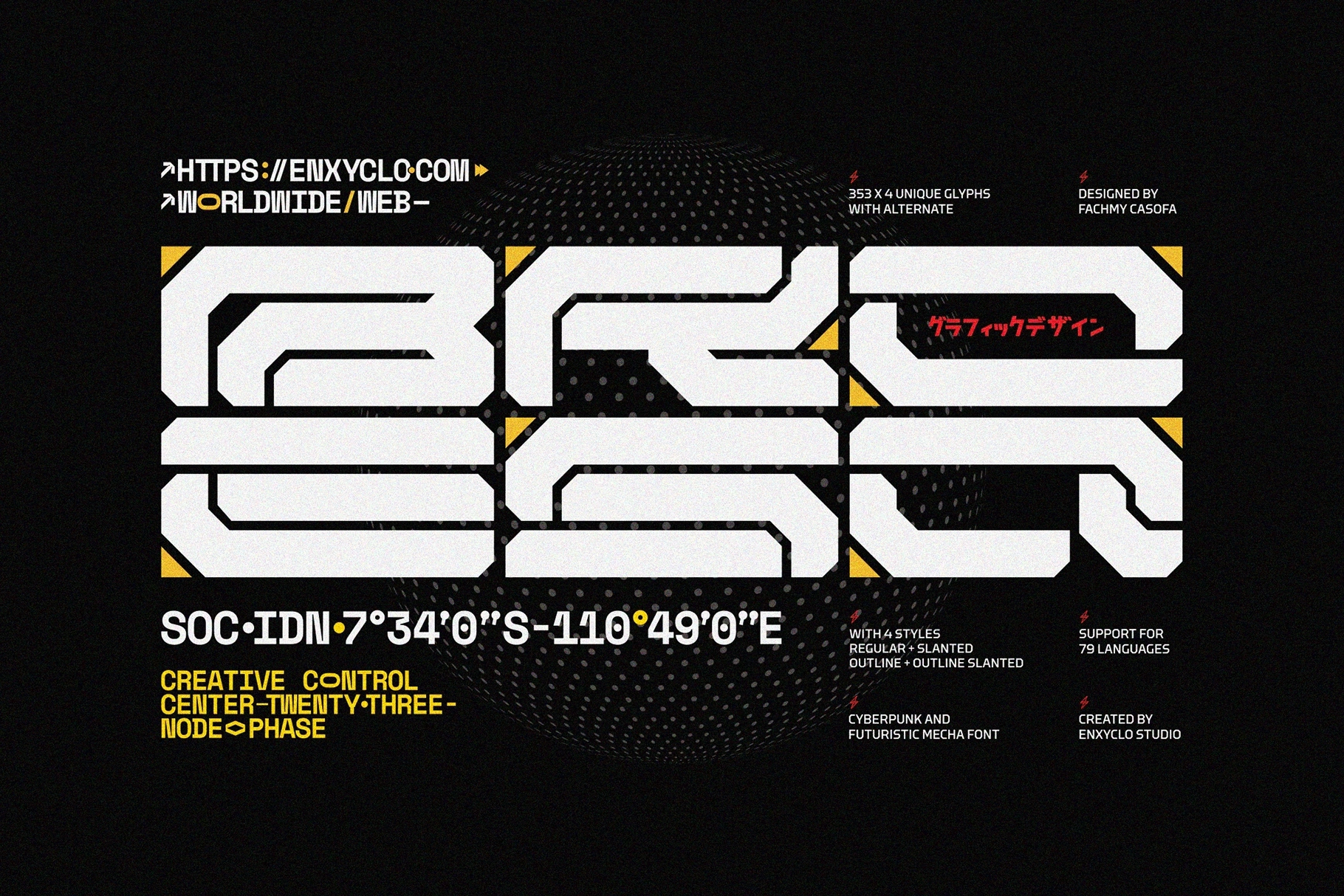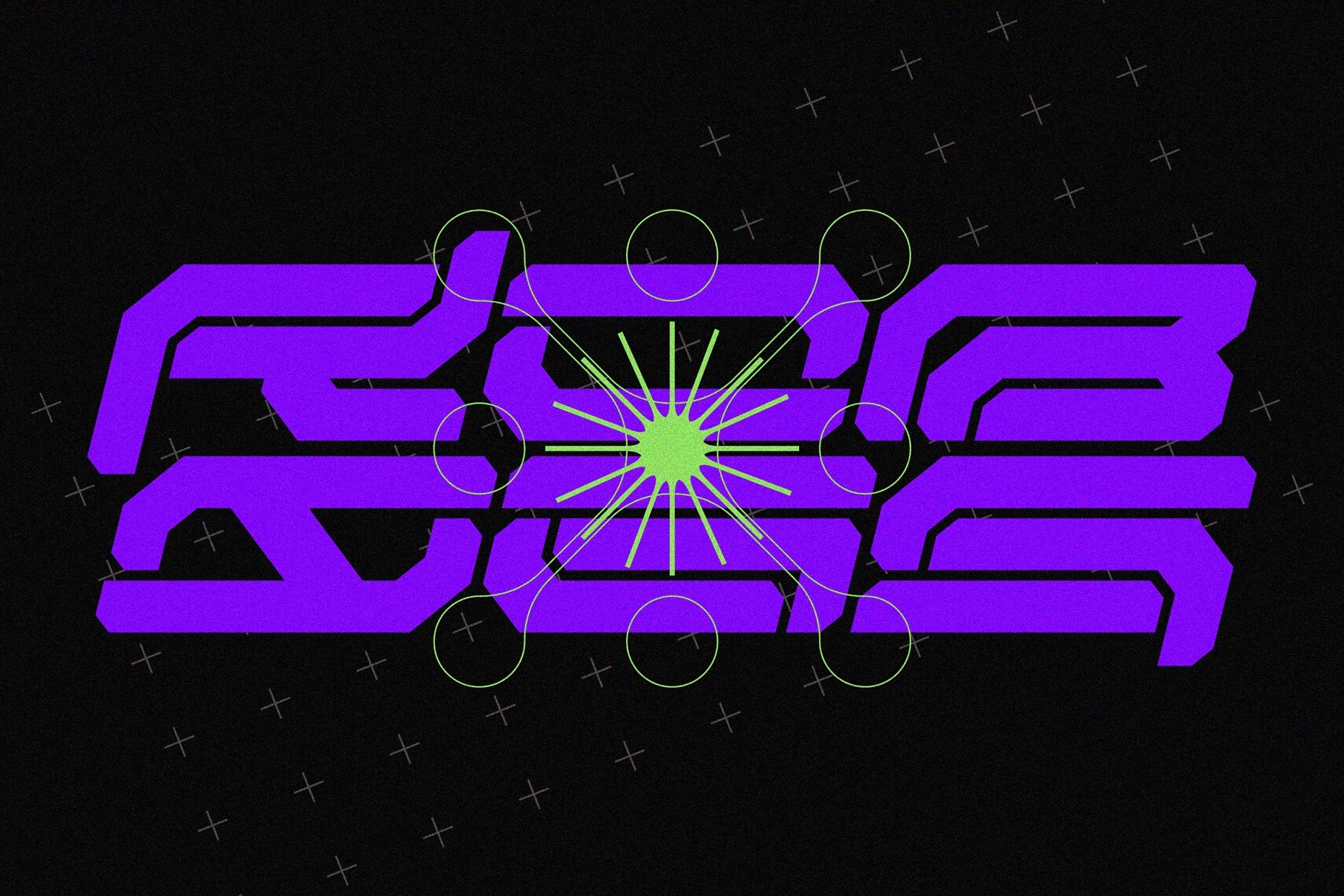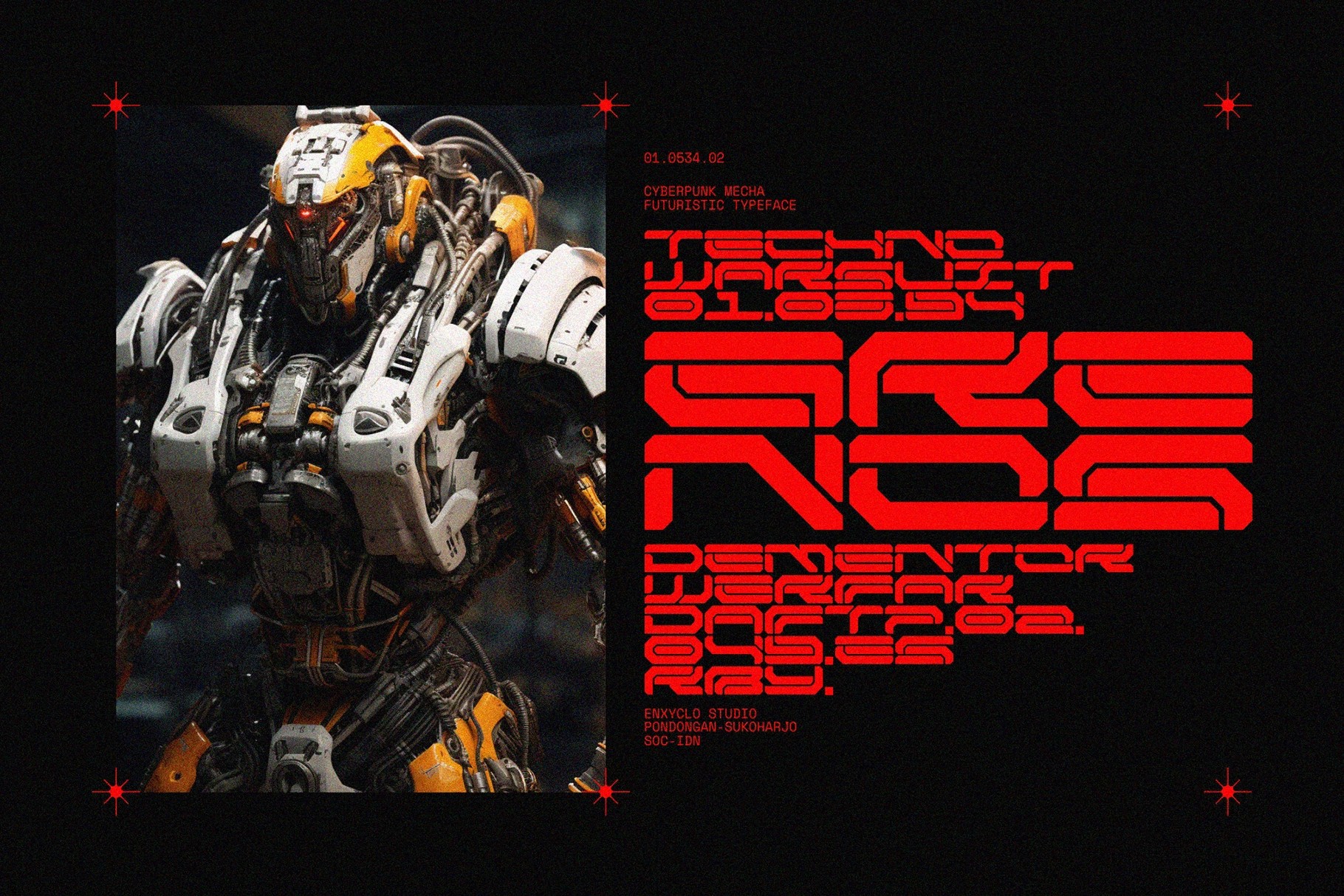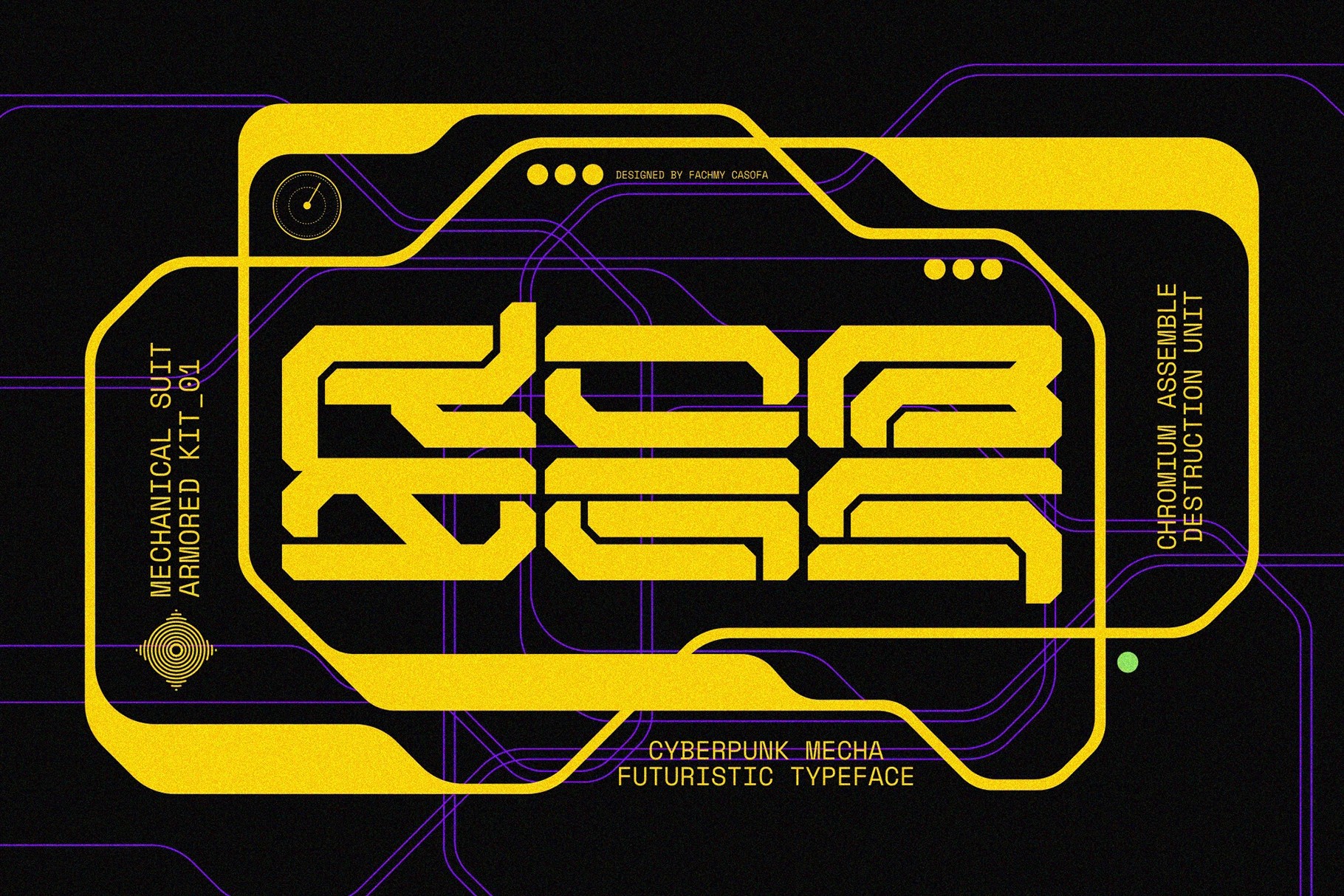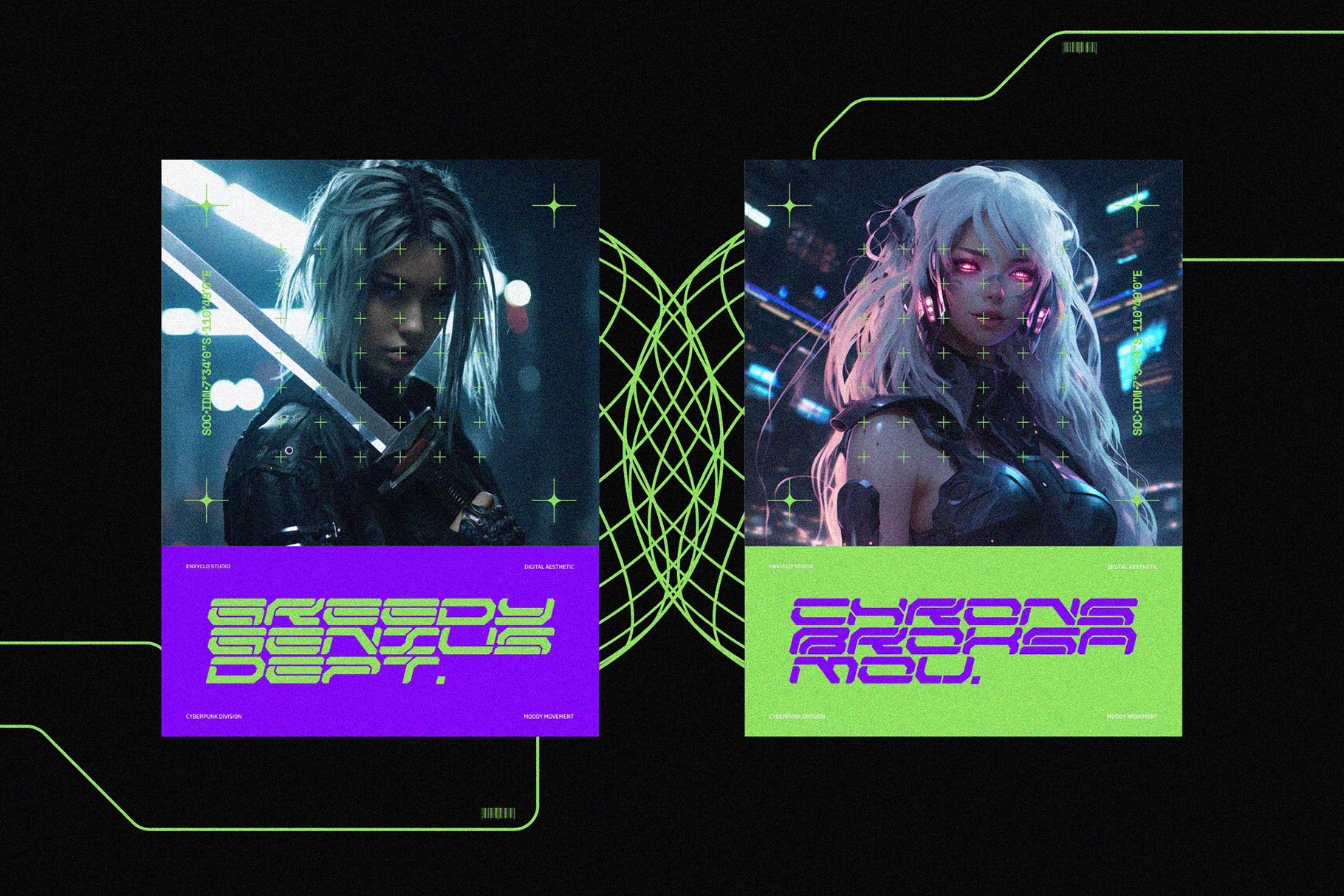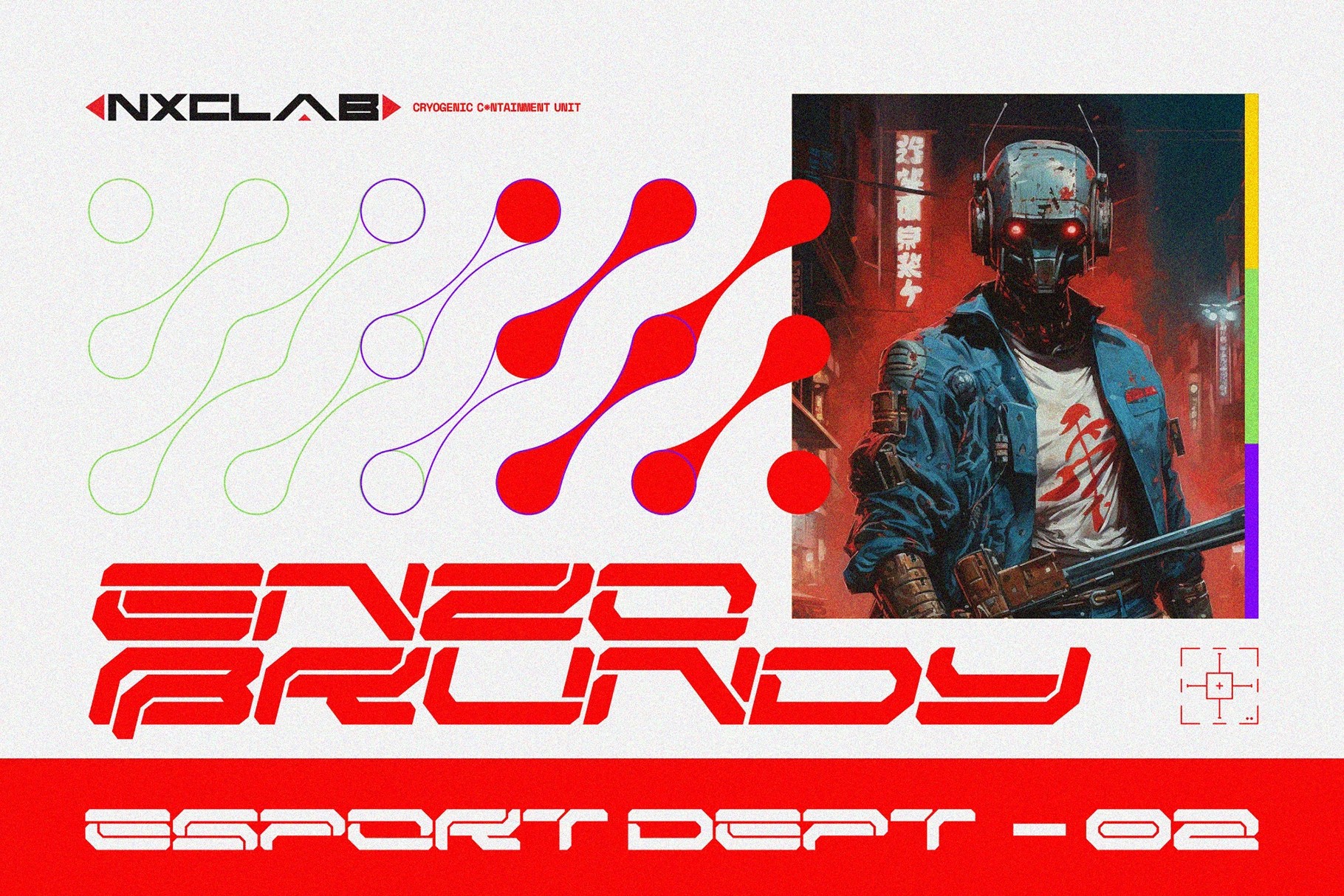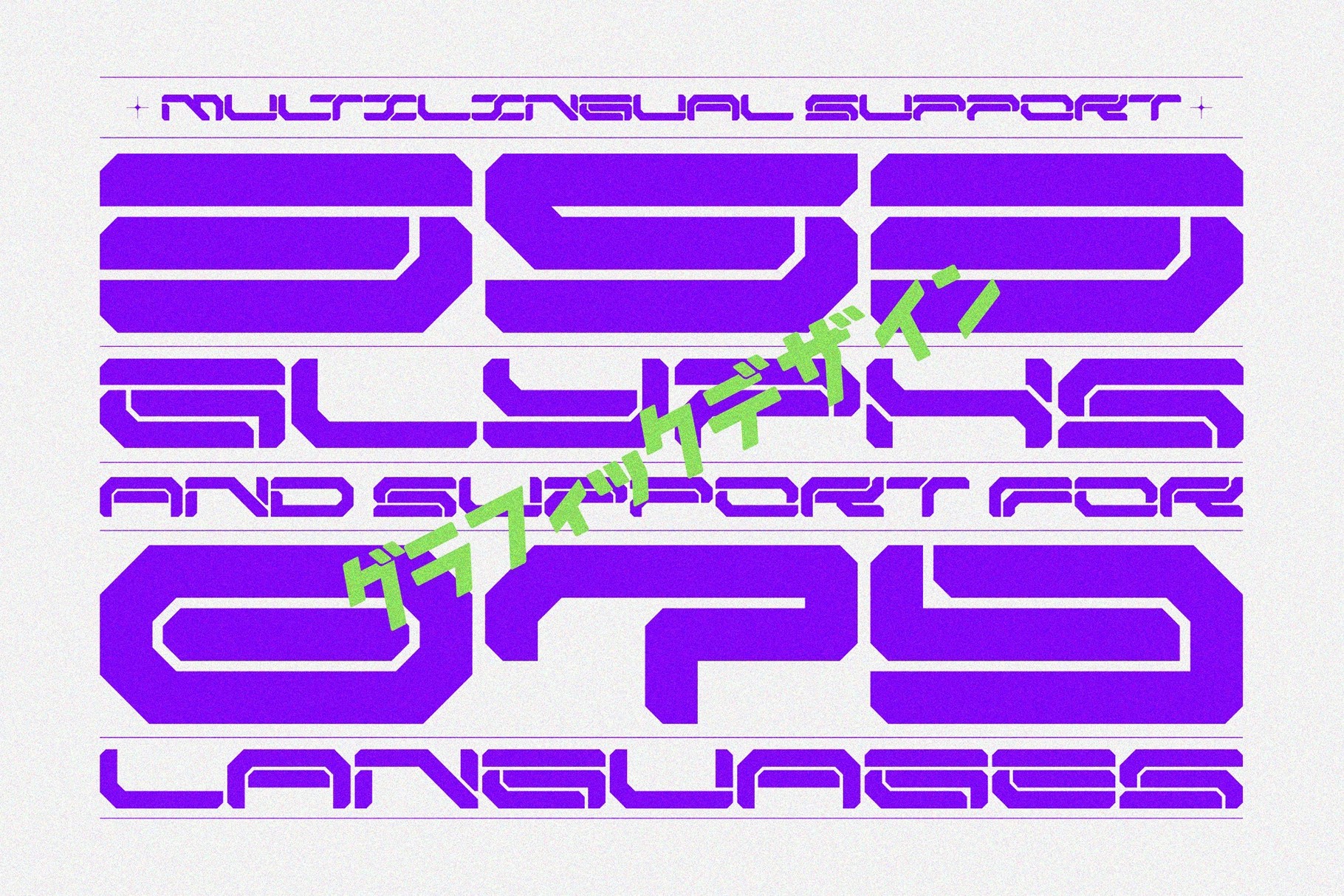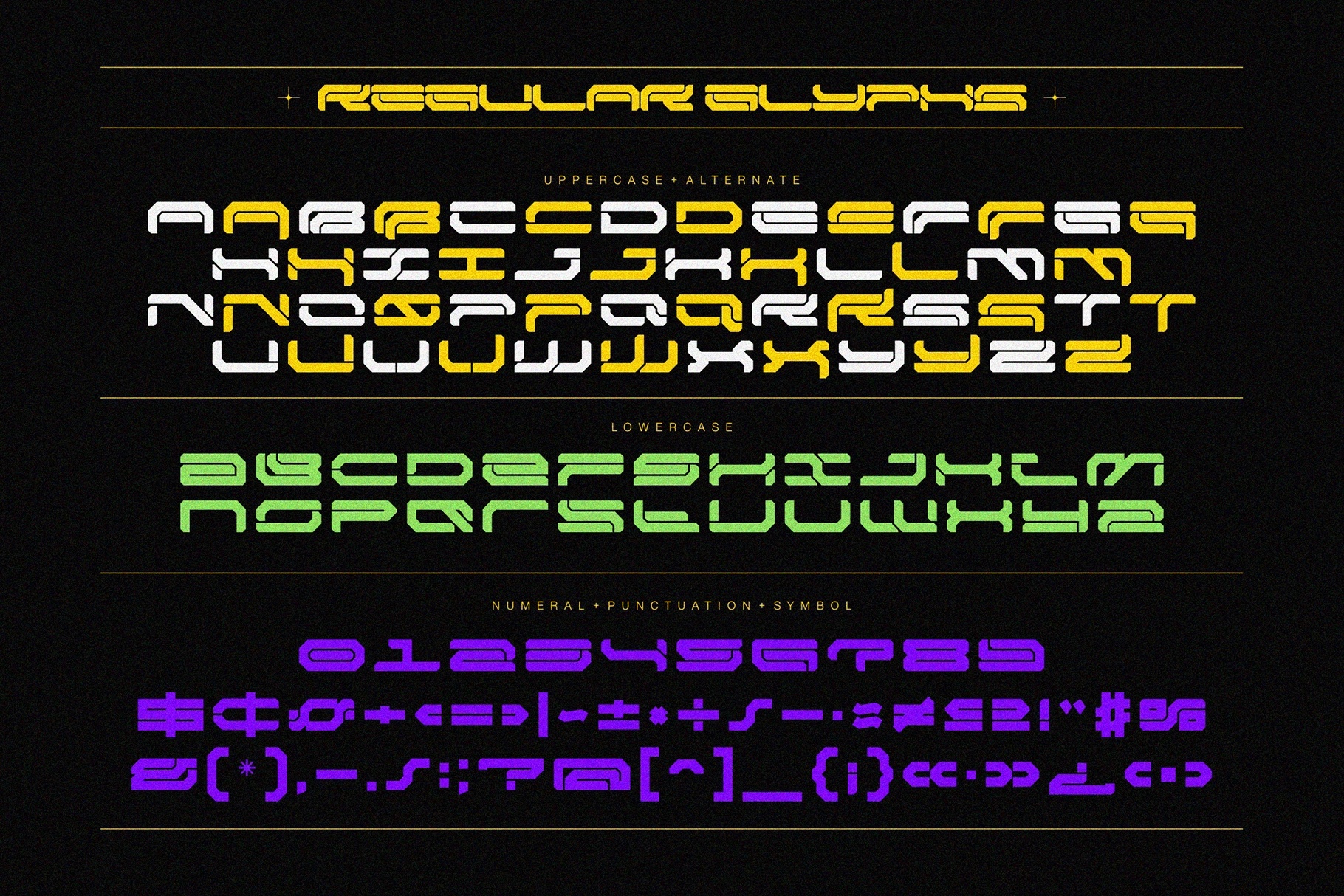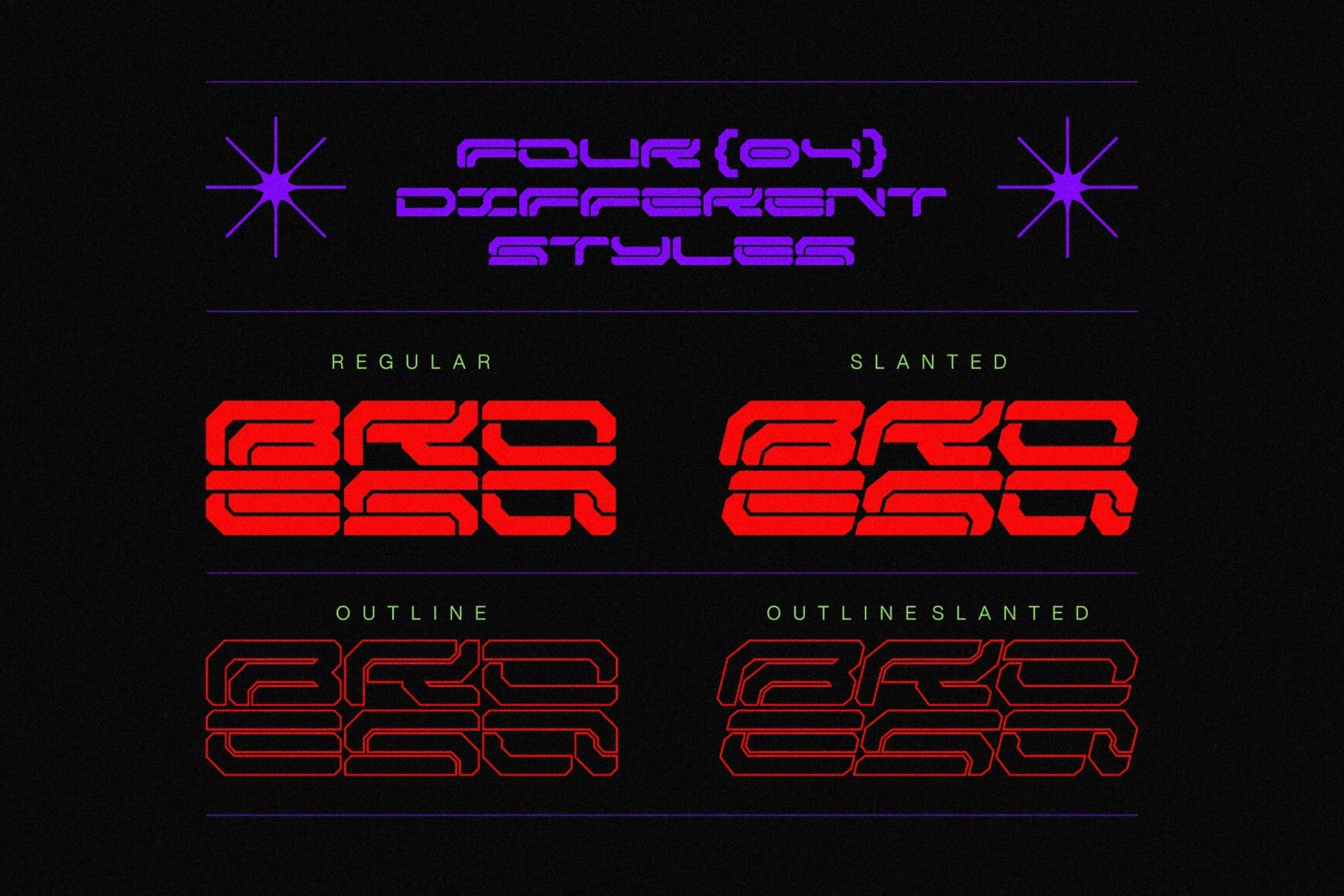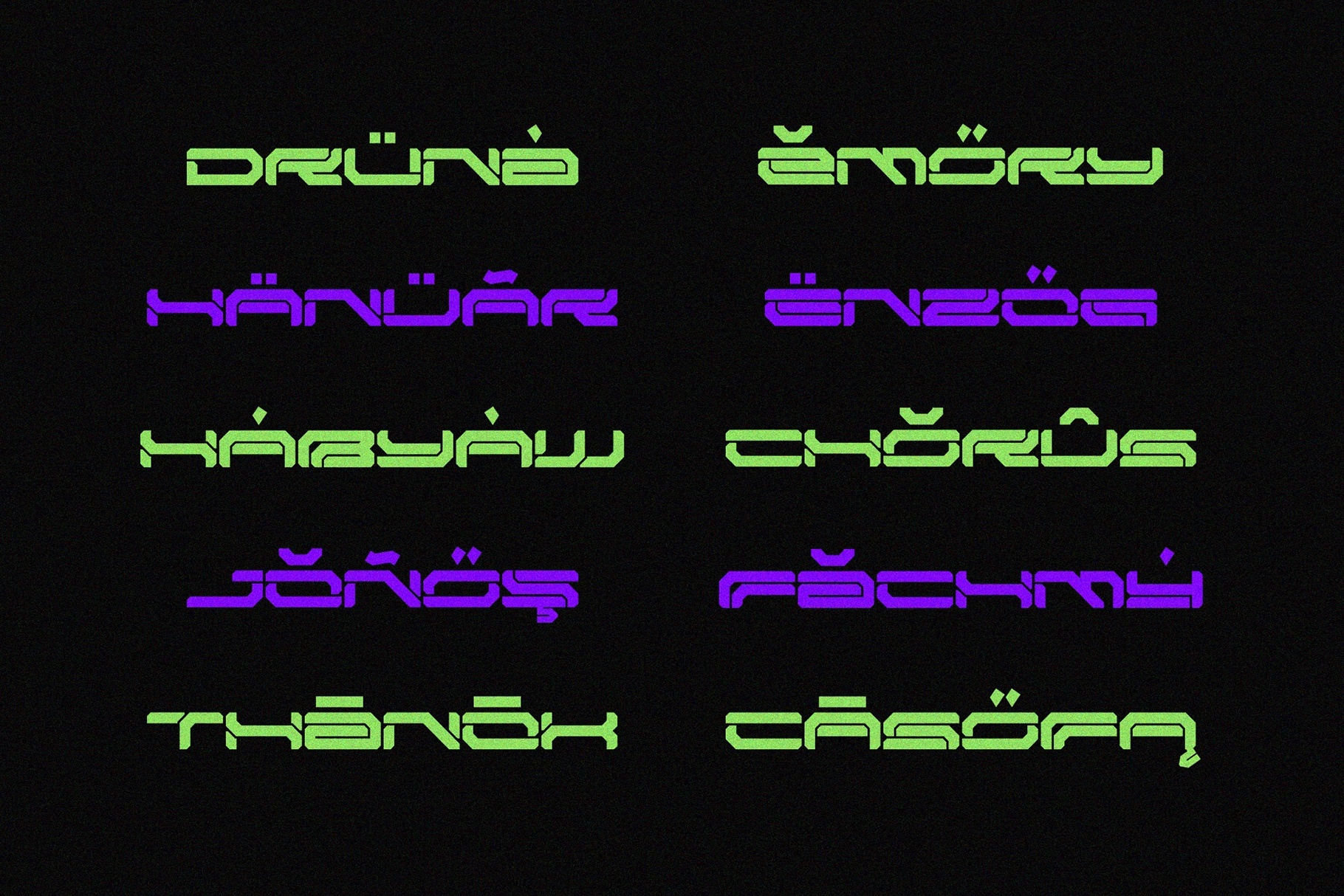
BROESQ - Mecha Futuristic Cyberpunk Font
NCL BROESQ features a compact, segmented geometry shaped by cyberpunk game HUDs and mecha anime lettering, with echoes of arcade-era sci-fi typography and industrial interface design. Its dense, modular forms fit esports branding, tech logos, gaming overlays, poster headlines, music artwork, and experimental UI layouts, while the alternate styles extend cleanly into motion titles and digital campaigns.
• 4 font styles: Regular, Slanted, Outline, Outline Slanted
• 353 glyphs per style with alternates
• Uppercase & lowercase characters
• Stylistic set